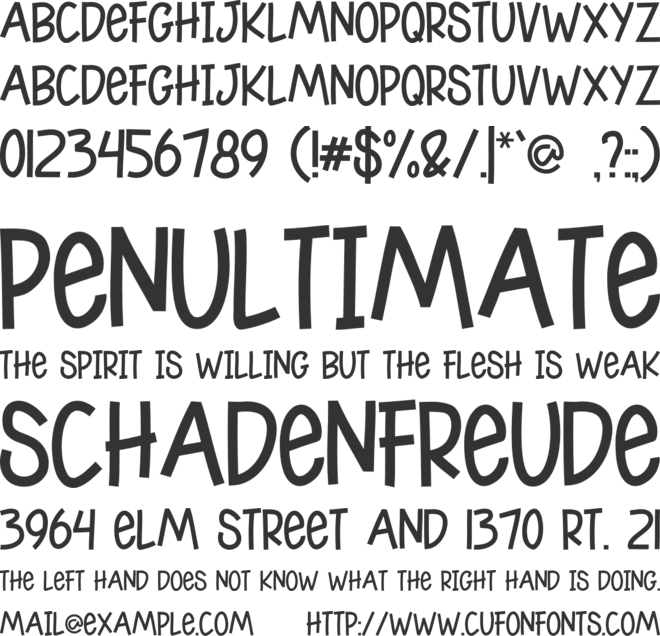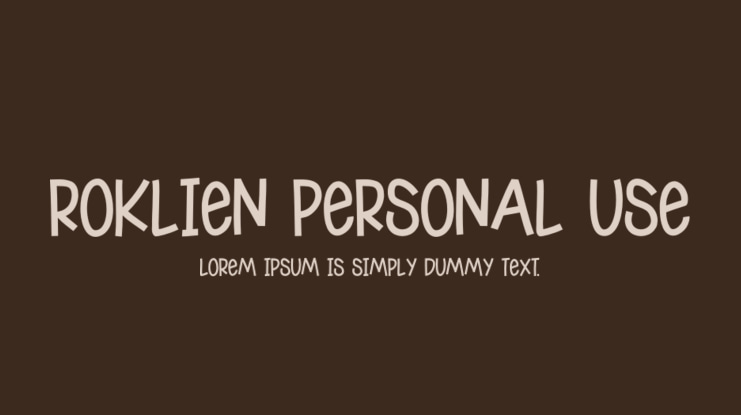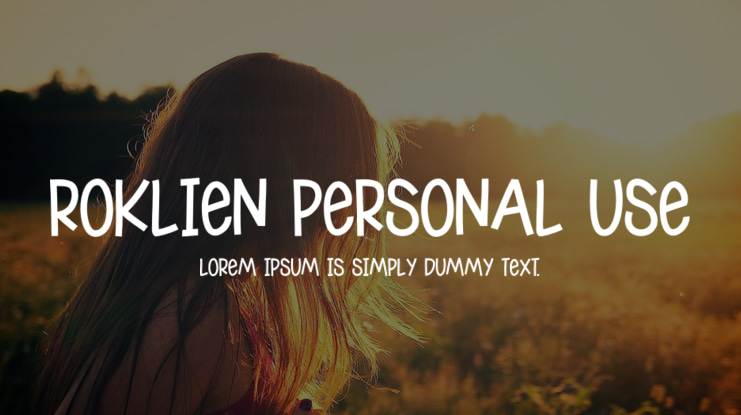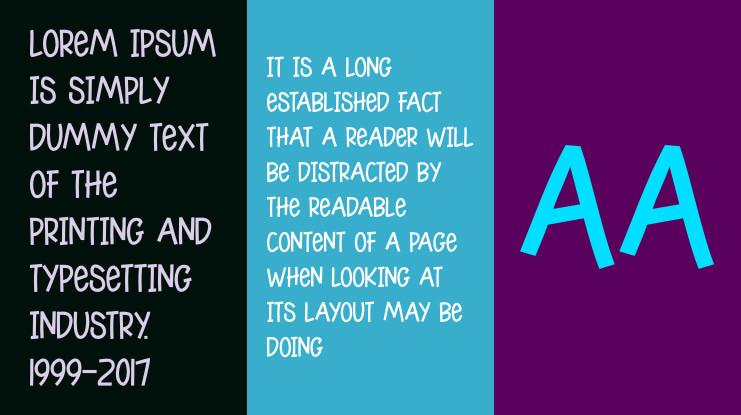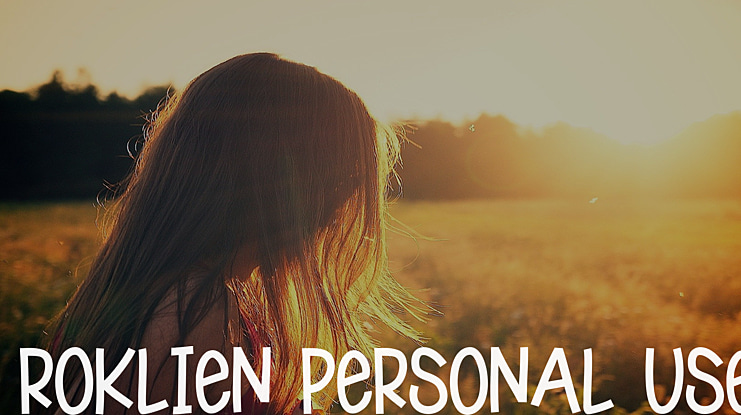
Roklien Personal Use Font
Roklien is a childish, easy-to-read display font that conveys impeccable friendliness. Whether you’re using it for crafts, digital design, presentations, or making greeting cards, this font has the potential to become your favorite go-to font, no matter the occasion!This demo font is for personal use only and Commercial Use Not Allowed !,If you want to use this font for Commercial use, you need to purchase a Commercial license here:https://www.creativefabrica.com/product/roklien/ref/142525/You can also Find other Great Fonts on Our site, Just Check our site here:https://www.creativefabrica.com/ref/142525/If you need a Special License, please feel free to contact us at: thank youregardspandanwangi